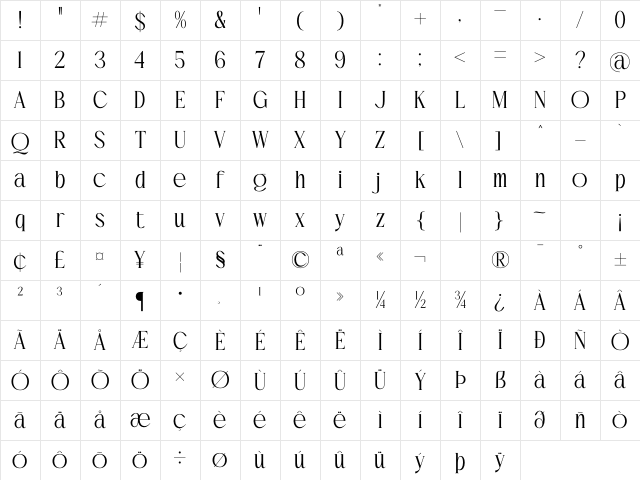
Casftego Regular
Foundry: Storytype Studio
Designer: Heru Utama Putra
Design Context for Casftego
Casftego is a composed and adaptable typeface that performs quietly and consistently across a wide range of design contexts.